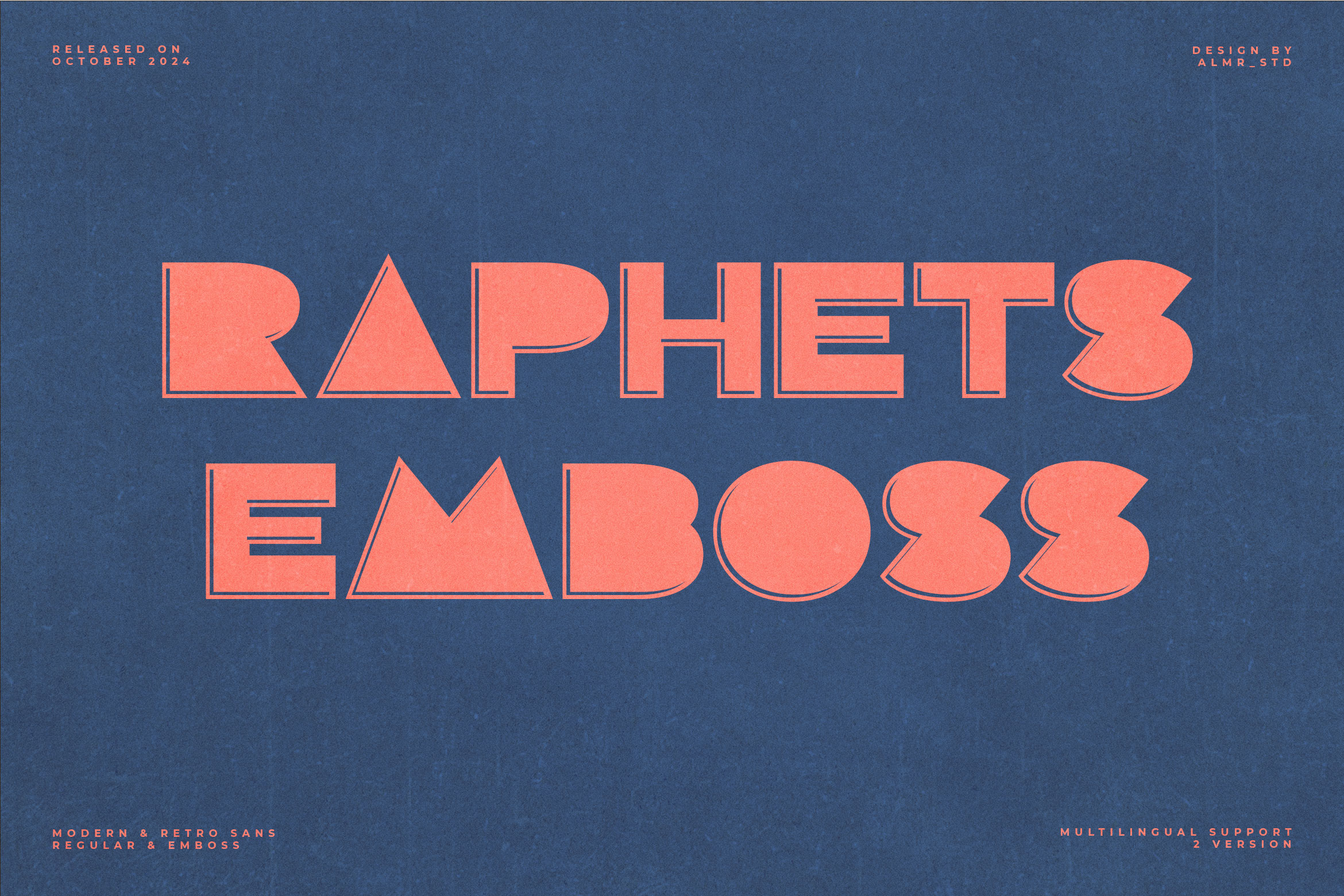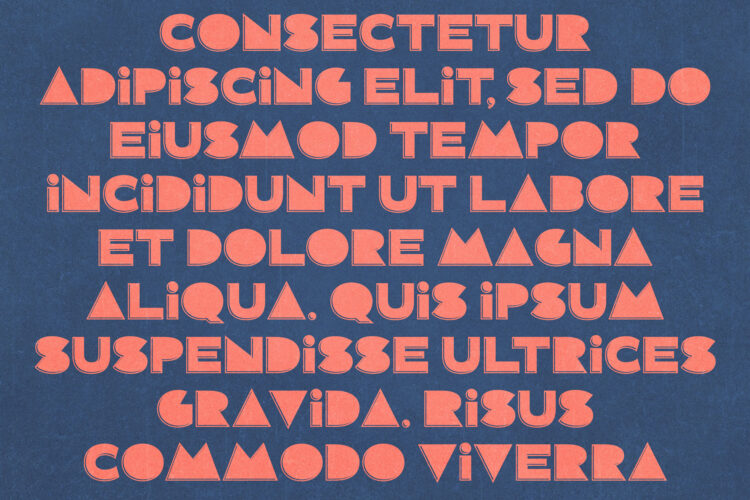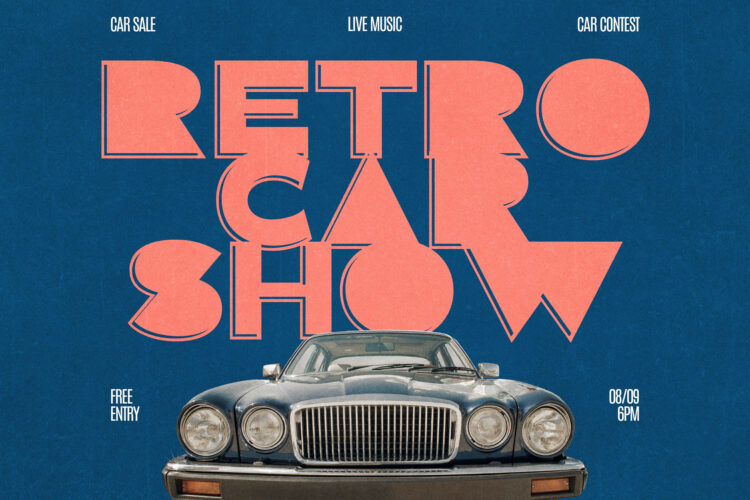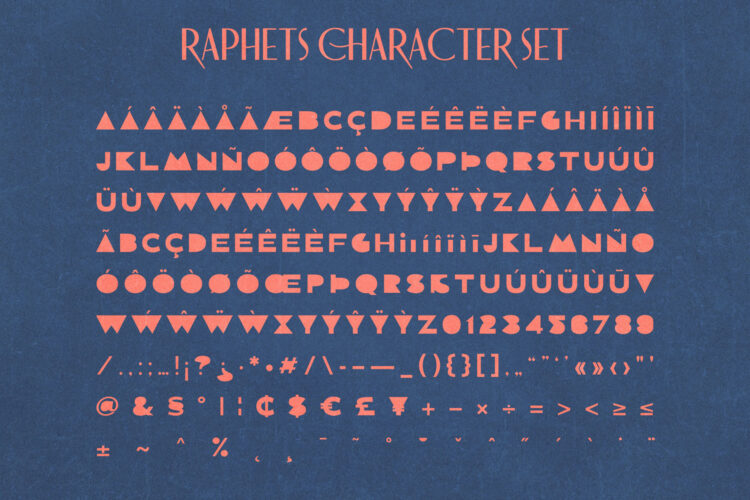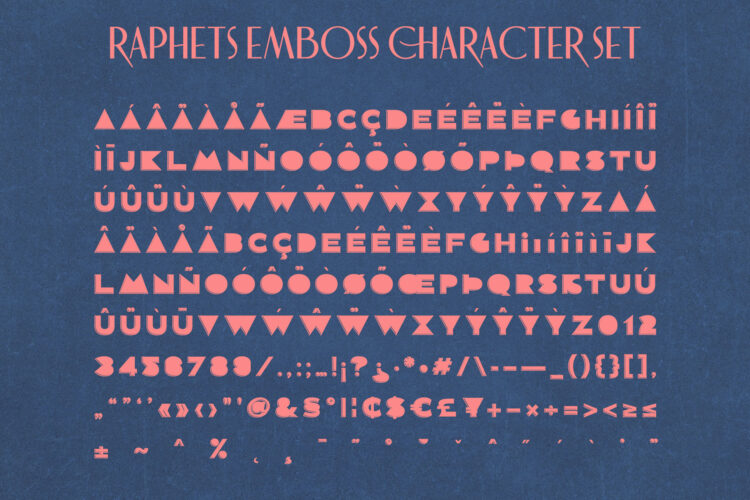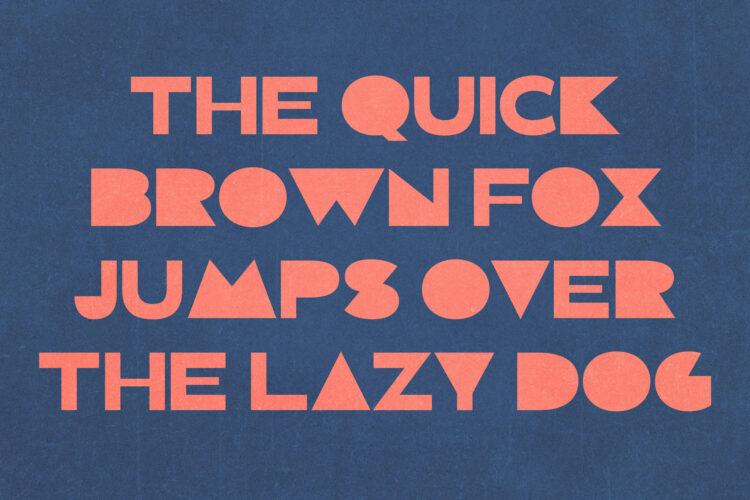
Raphets is a retro sans-serif typeface with a heavy touch. Come with 2 versions, regular and emboss. This font is perfect for branding, titling, headline, headings, logos, magazines, product packaging and more.
This typeface adds a bold style to your artworks. a font with a big fat personality that will make all your artistic creations come alive with style and weight.
Raphets – Retro Sans